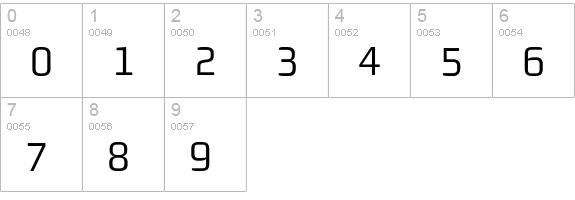
MorganSnLining Font Details
Introducing MorganSnLining font - a modern and stylish typeface that exudes sophistication and elegance. With its sleek lines and clean design, this font is perfect for a wide range of design projects, from branding to advertising to social media graphics. What sets MorganSnLining font apart is its versatility - it can be used for both headings and body text, making it a go-to choice for designers looking for a cohesive and polished look. The font's smooth curves and well-balanced proportions ensure readability and legibility across various platforms and mediums. Best of all, MorganSnLining font is available for free download at FontsMarket.com. Whether you're a seasoned designer or just starting out, this font is a valuable addition to your collection. Don't miss out on the opportunity to elevate your projects with the timeless charm of MorganSnLining font. Download it today and let your creativity soar!